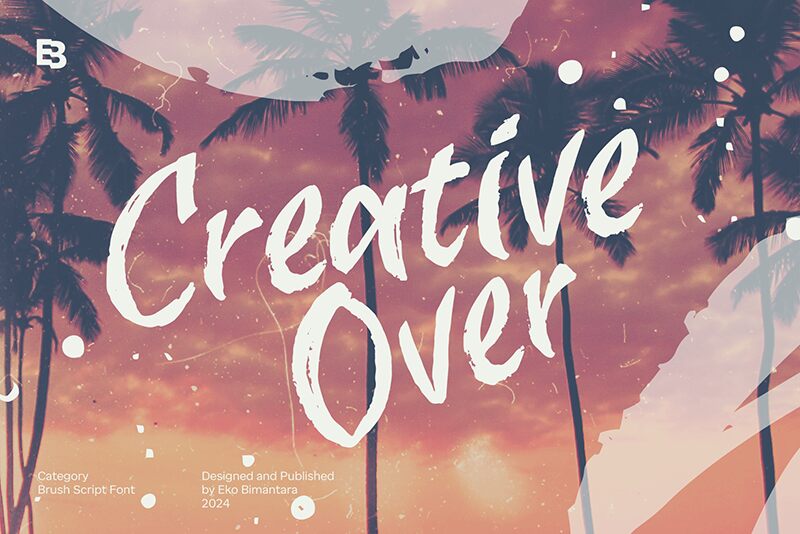
Creative Over Trial
Creative Over font is a free brush font by Eko Bimantara. It’s an expressive script typeface with textured strokes and an artistic appearance. Although informal, the design embraces a percentage of contemporary elements that are nicely balanced in each character. The result is a versatile display font whose energetic flow cannot be ignored.
Such an eye-catching vintage font can be creatively used in poster projects or digital ads and social media posts. It is also effective when executing book covers, packaging designs, apparel branding, advertising material, patterns and textures, business cards etc.